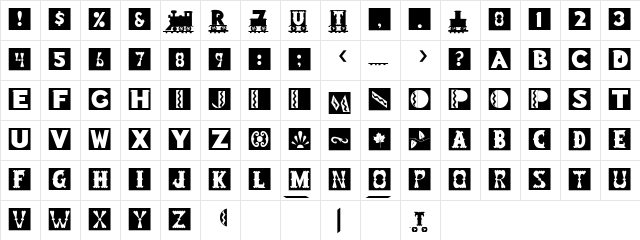
Toy Block Medium
Design Context for Toy Block Typeface
Toy Block is a composed and adaptable typeface that performs quietly and consistently across a wide range of design contexts.